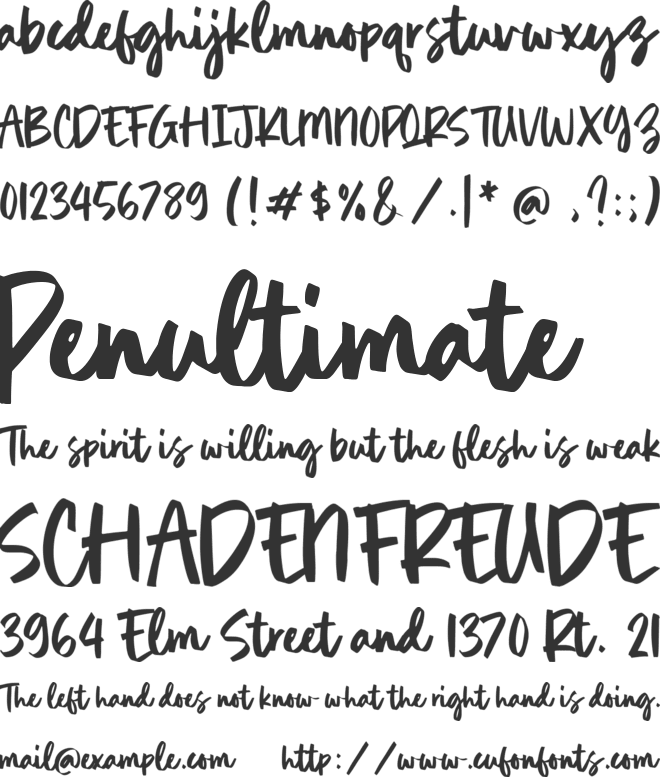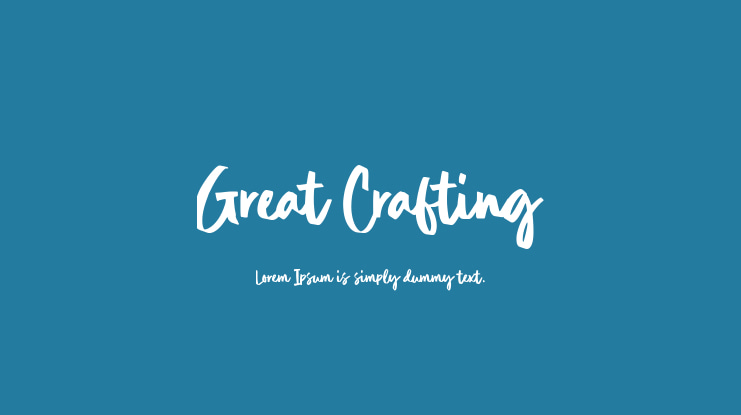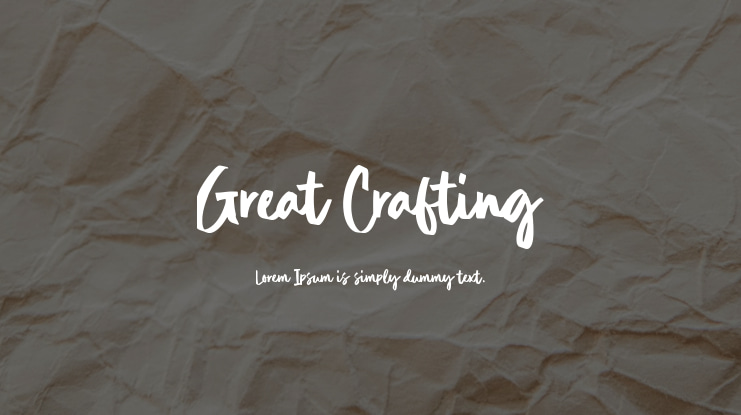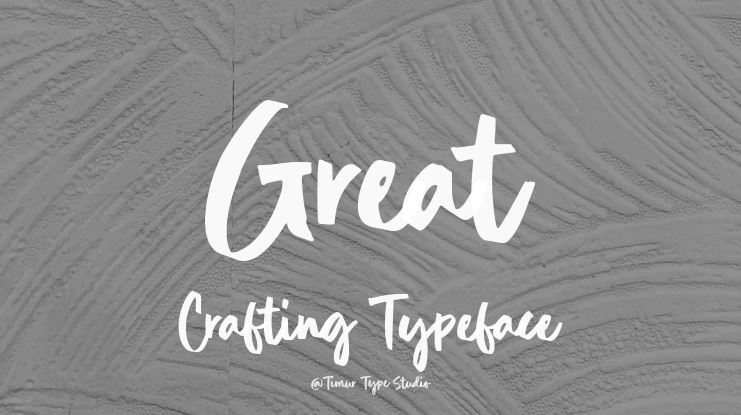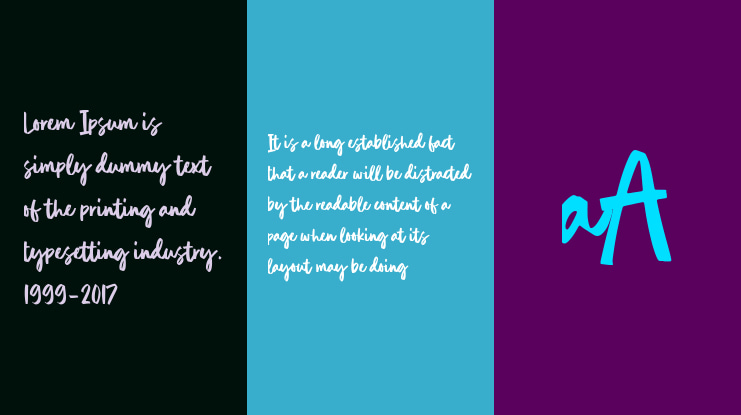
Introducing Great Crafting - a beautiful Handwritten Script Font by Timurtype Studio! This versatile font is a perfect choice for your design projects, exuding authenticity and creativity with its natural and imperfect letterforms. The varied stroke widths and slight irregularities give the Great Crafting font a handcrafted and artisanal look, ideal for adding a personal touch to DIY projects, handmade goods, and craft-related designs.
Whether you're going for a rustic, homemade vibe or a whimsical, playful feel, the Great Crafting font offers warmth and versatility. Enhance your designs with a handmade charm and artistic flair using this unique handwritten script font.